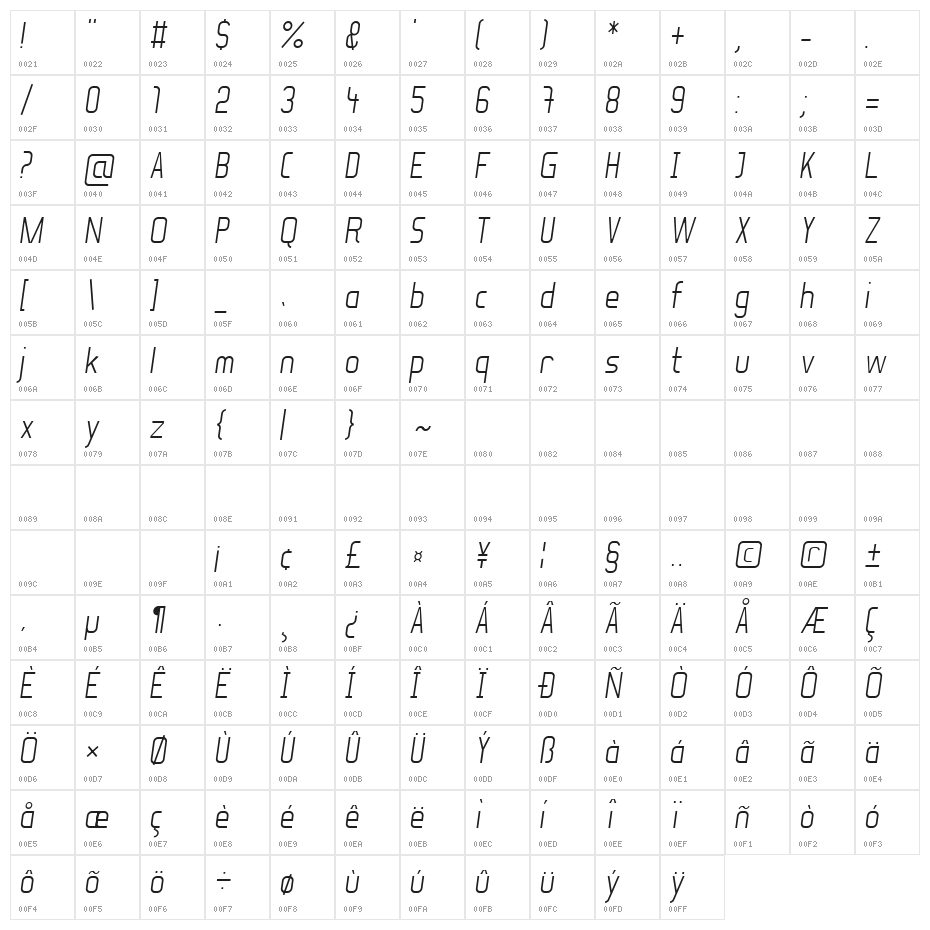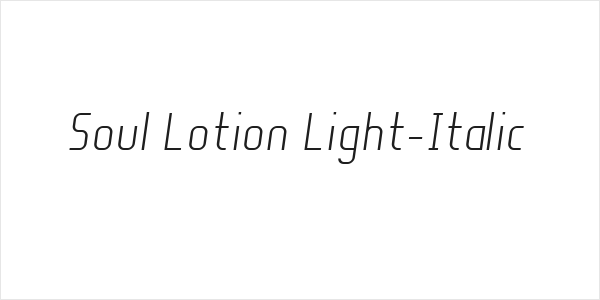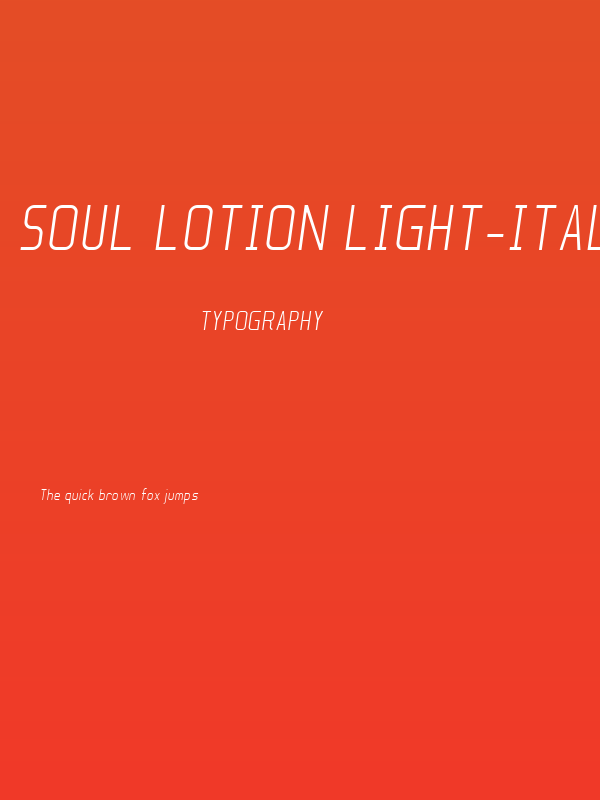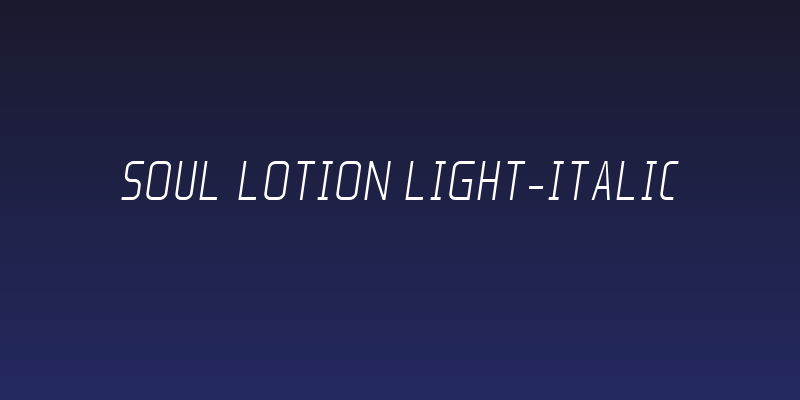
Soul Lotion Light-Italic Font
Soul Lotion Light-Italic Description
This font features a sleek, modern design with a light and airy feel. Its italic style adds a sense of motion and elegance, making it suitable for dynamic and creative projects. The characters are slightly condensed, contributing to a streamlined appearance. The font maintains a consistent stroke width, offering low contrast that enhances readability while retaining a stylish edge. Its clean lines and minimalist aesthetic make it versatile for various applications, from digital interfaces to print media.
| Proposed Projects | Ideal for branding, editorial design, digital interfaces, and creative projects that require a modern and elegant touch. |